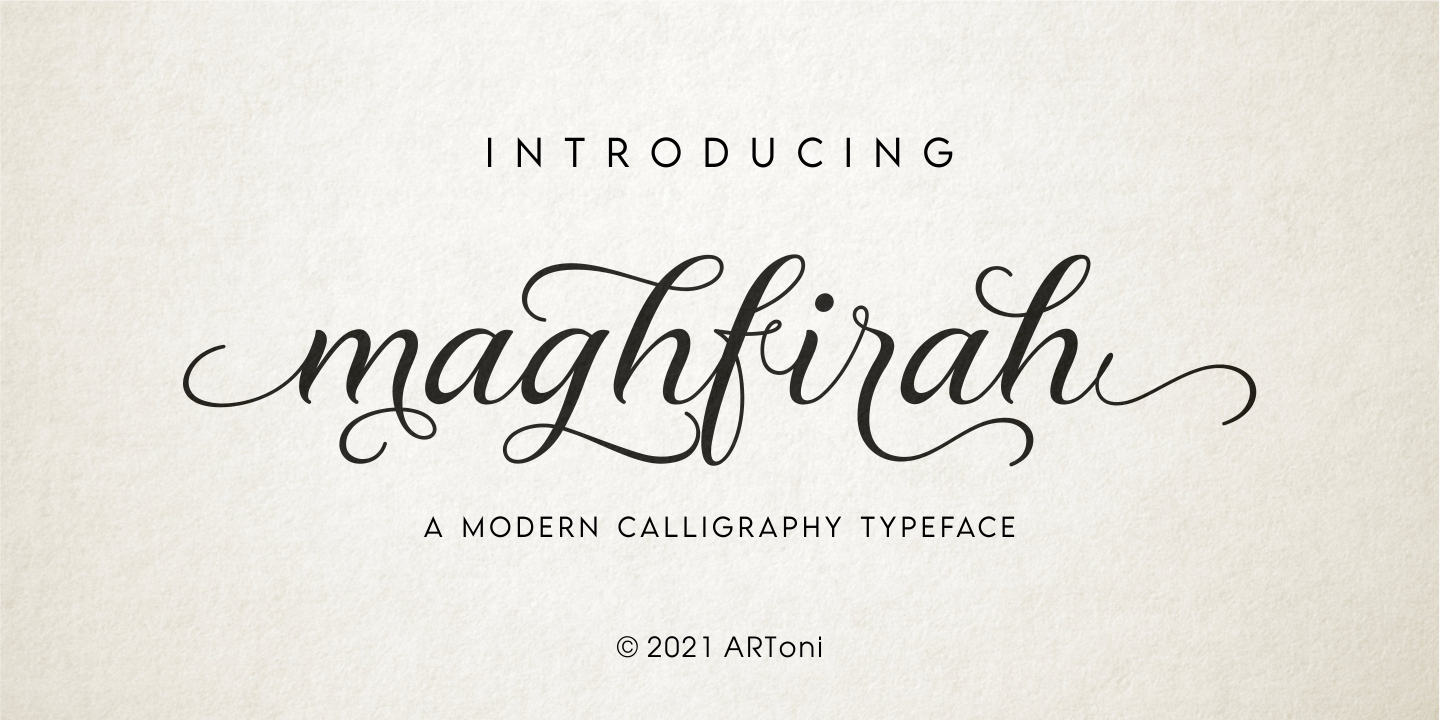
Maghfirah Font is ideal for elegant branding projects, luxury packaging design, sophisticated logo creation, wedding invitations, premium business cards, high-end magazine layouts, fashion labels, cosmetic branding, jewelry advertising, and upscale restaurant menus that require refined typography.
What makes Maghfirah Font exciting is its perfect balance of elegance and readability, combining classic sophistication with contemporary appeal. This exquisite typeface features graceful letterforms that exude luxury and refinement, making it an exceptional choice for brands seeking to convey premium quality and timeless style. The font's carefully crafted details create a sense of exclusivity and prestige.
The Maghfirah Font family includes regular, light, and bold weights, complemented by elegant italic versions that enhance the font's versatility. Special stylistic alternates, ligatures, and decorative swashes provide additional design flexibility, while multilingual support ensures global accessibility for international projects.
Maghfirah Font Free Download offers designers access to professional-grade typography that elevates any creative project. Its exceptional legibility across various sizes makes it suitable for both headline and body text applications. The font's sophisticated character spacing and kerning ensure optimal readability while maintaining its luxurious aesthetic appeal.
Experience the refined beauty of Maghfirah Font and discover how premium typography can transform your designs into sophisticated visual statements that captivate and inspire your target audience with unmatched elegance.